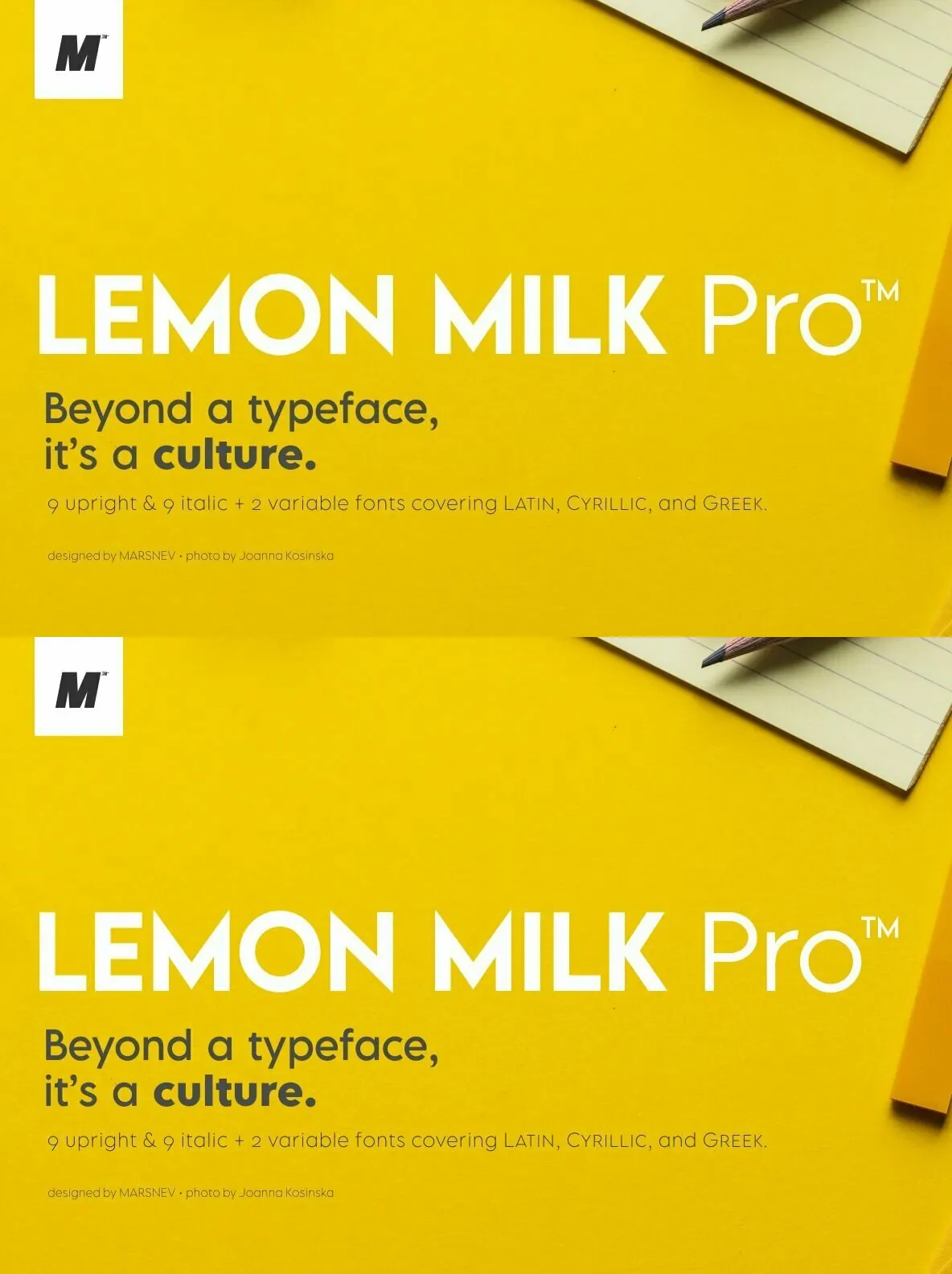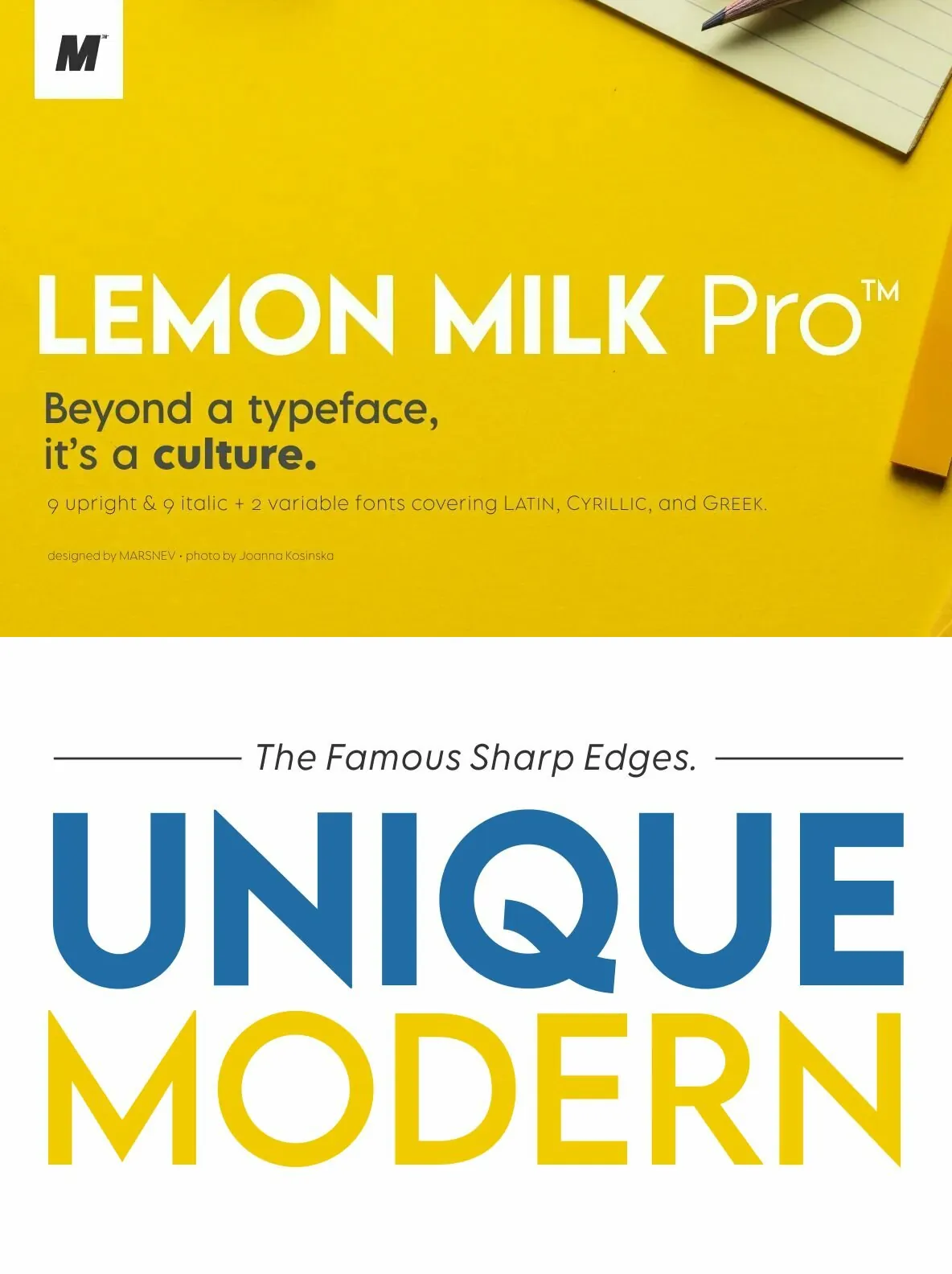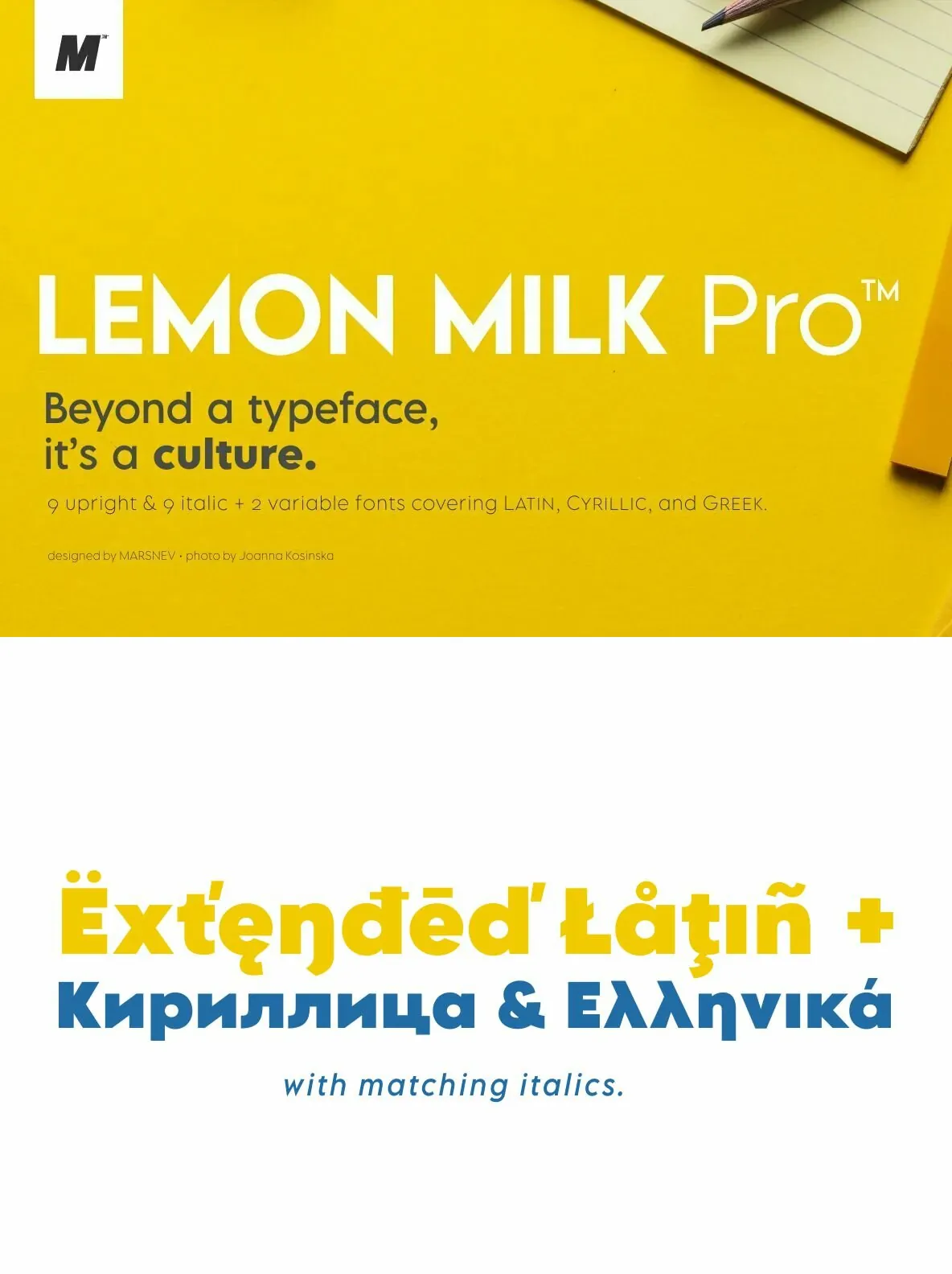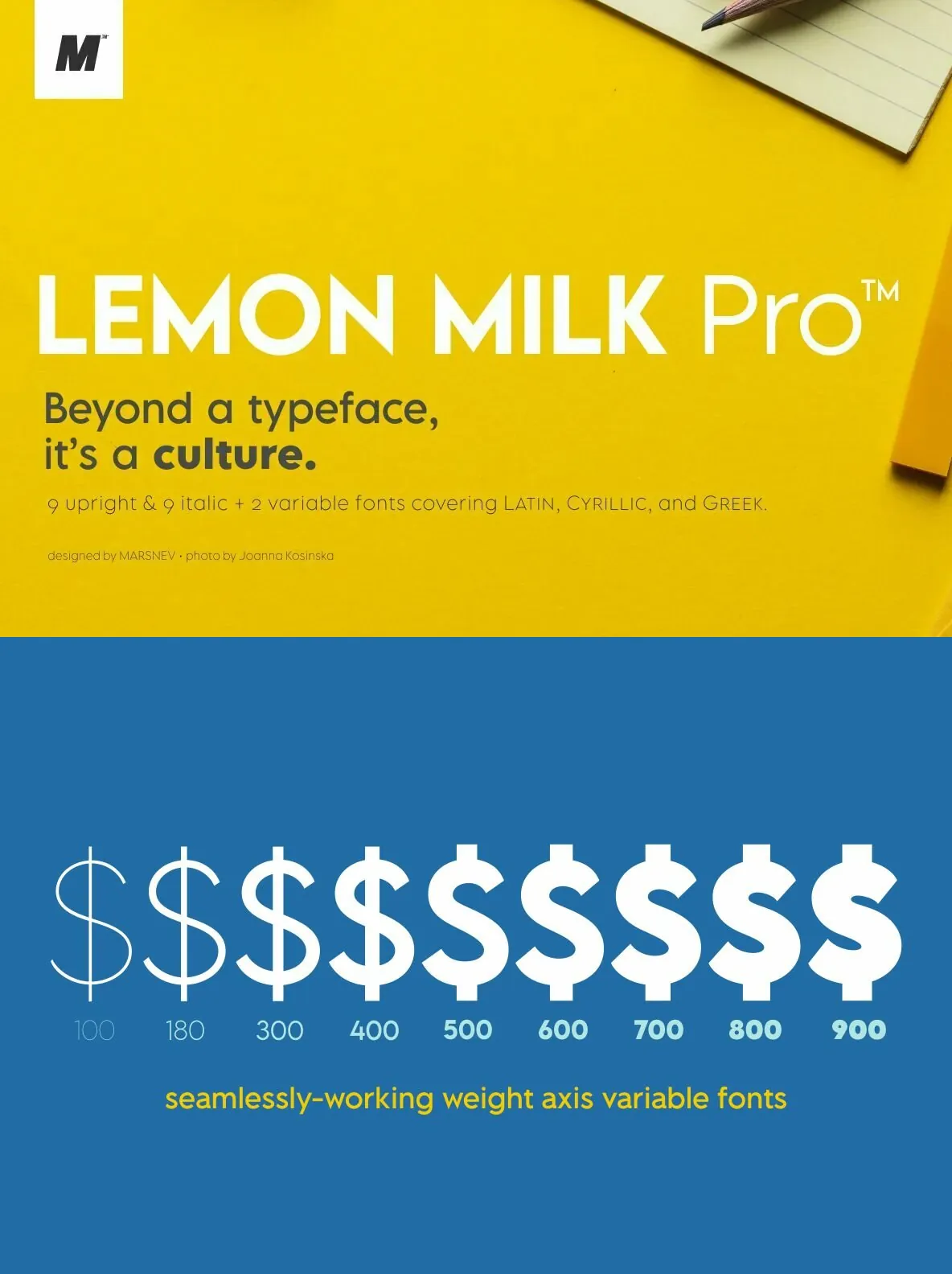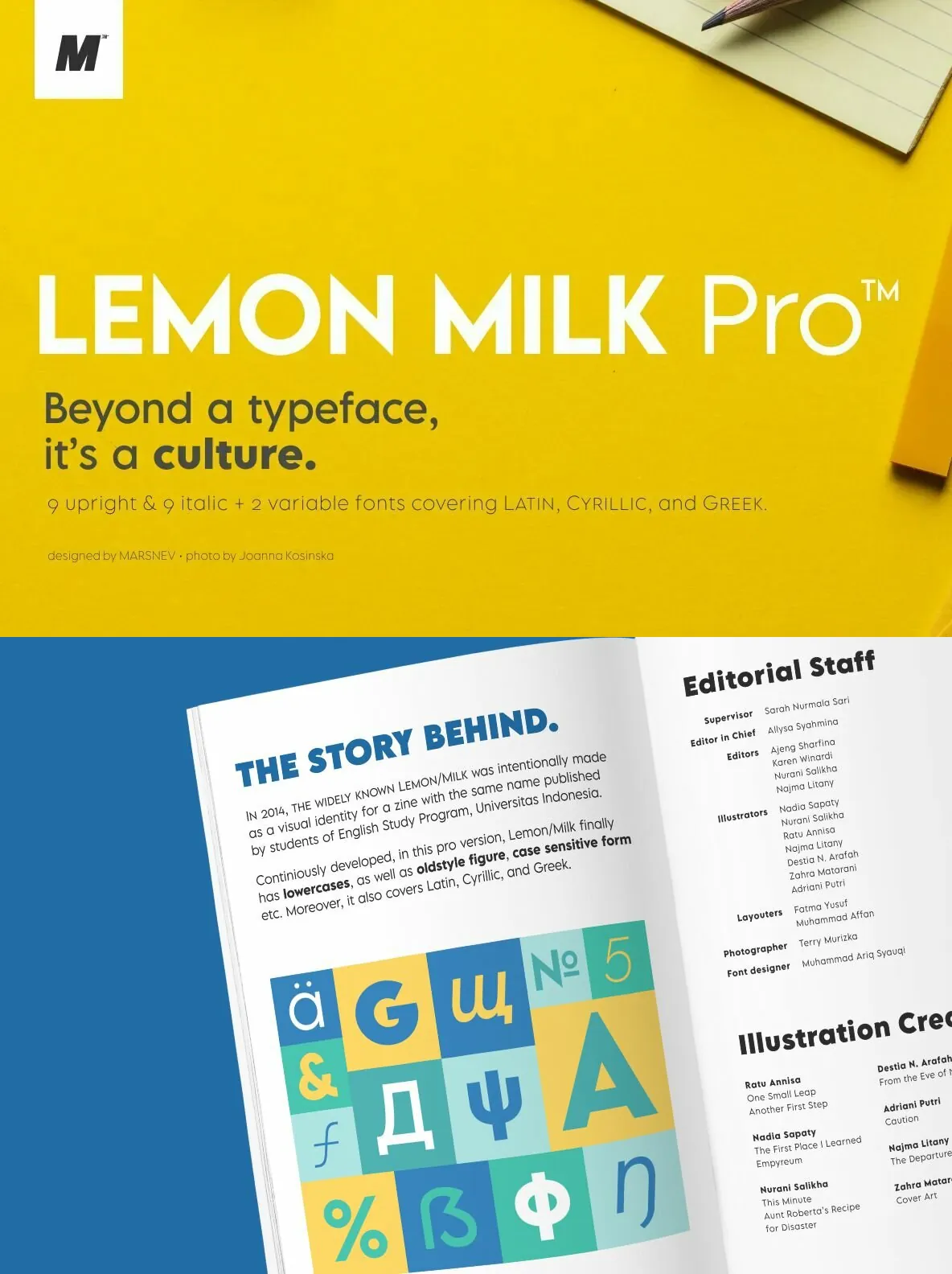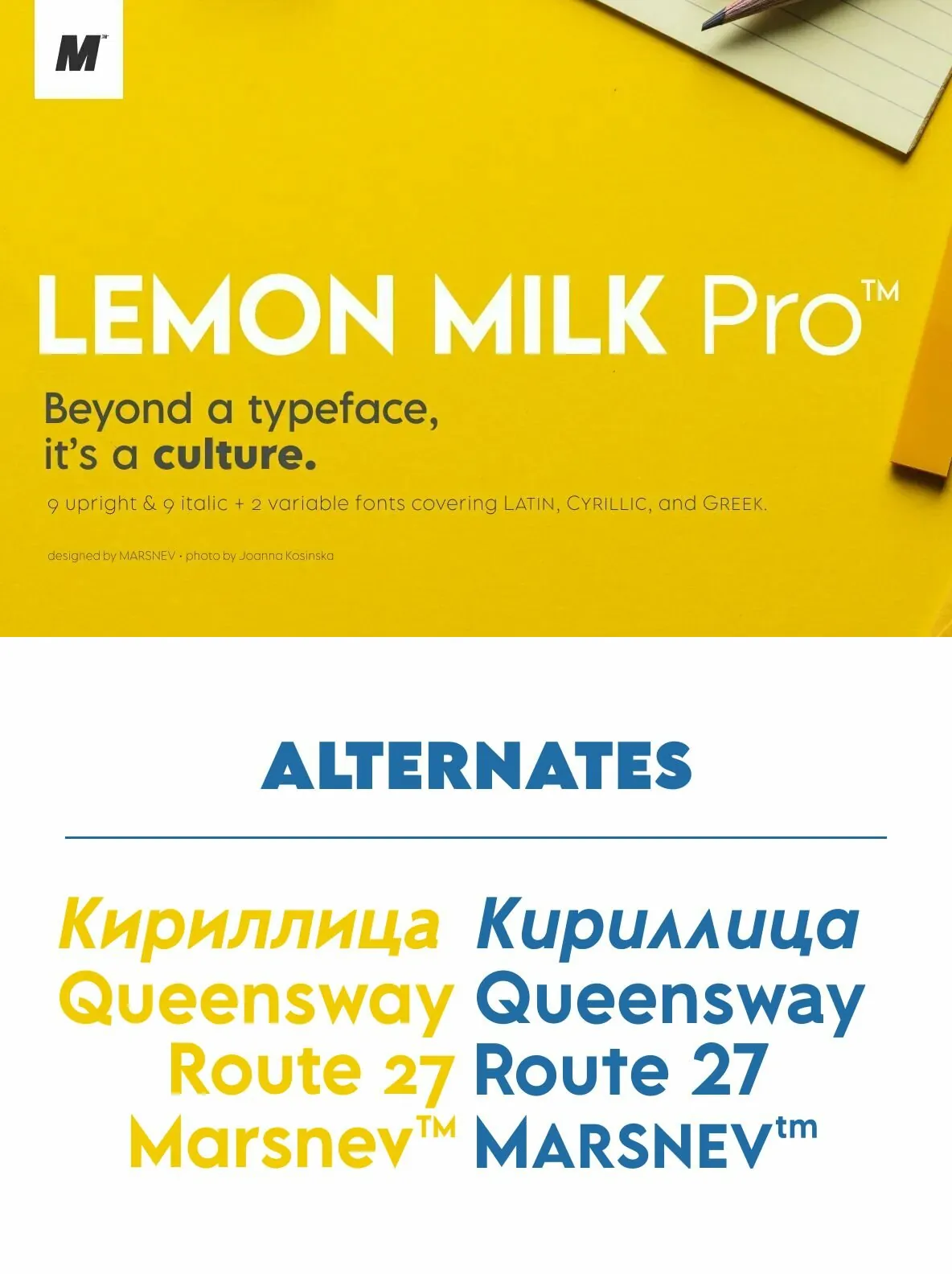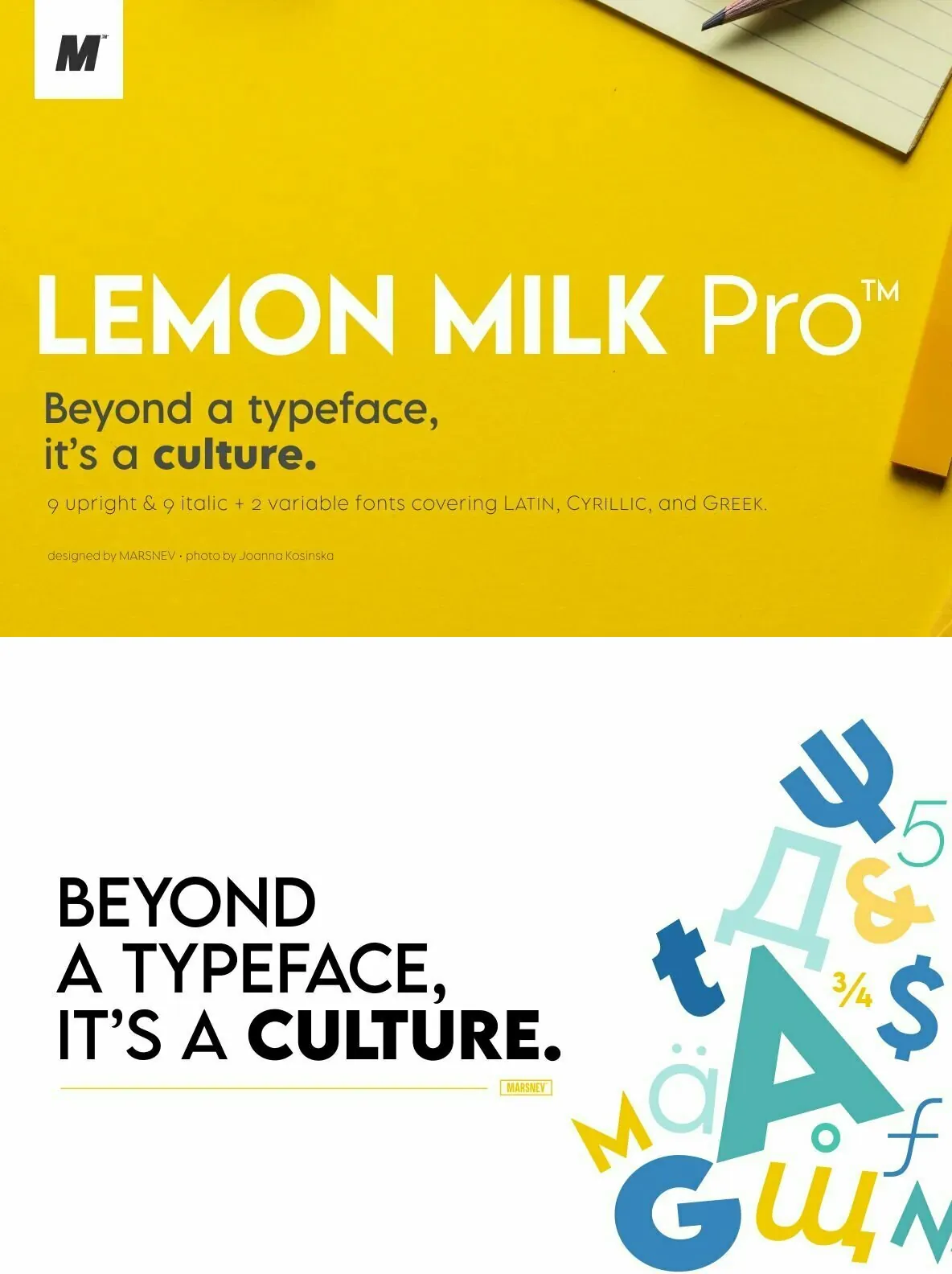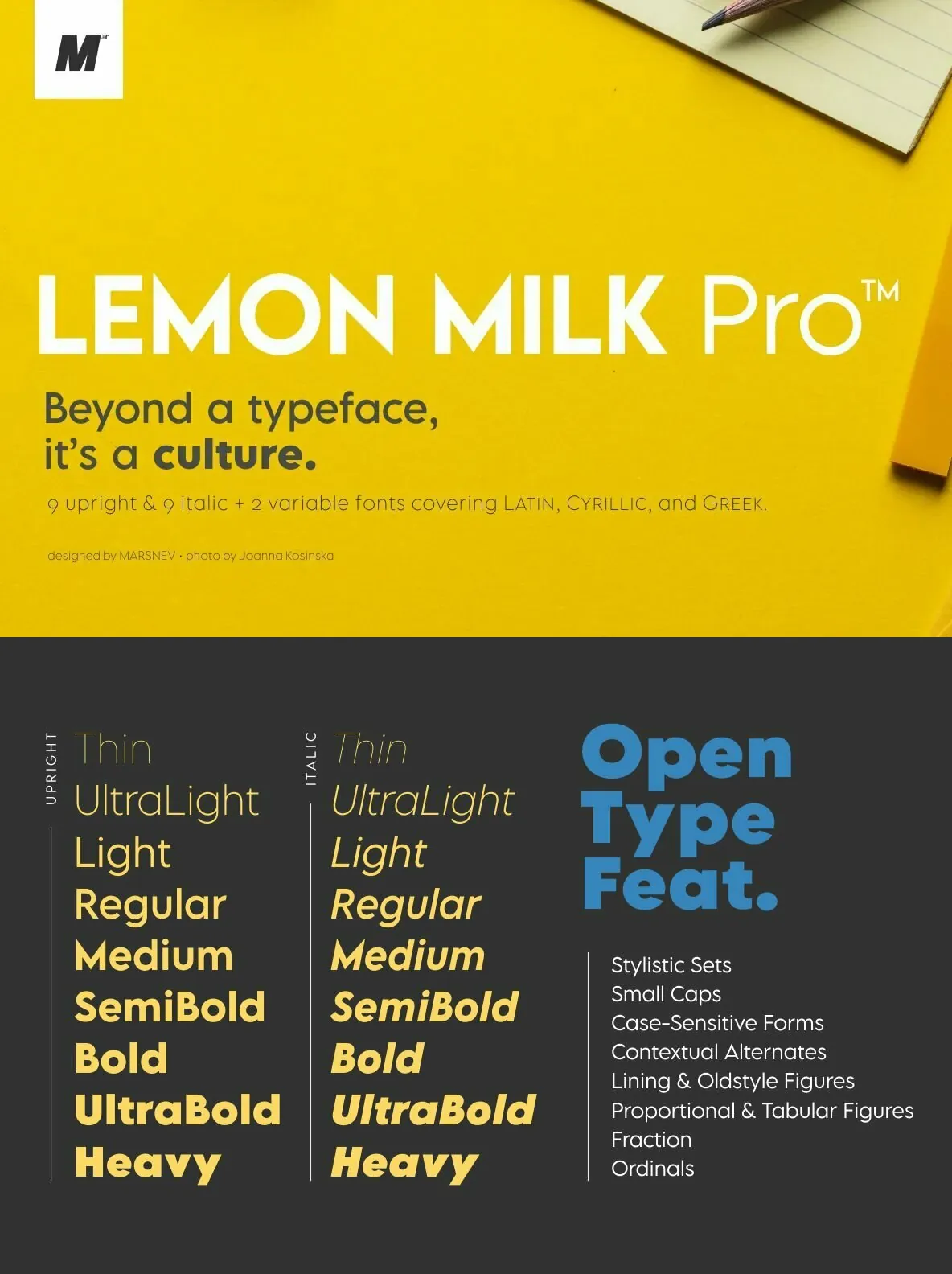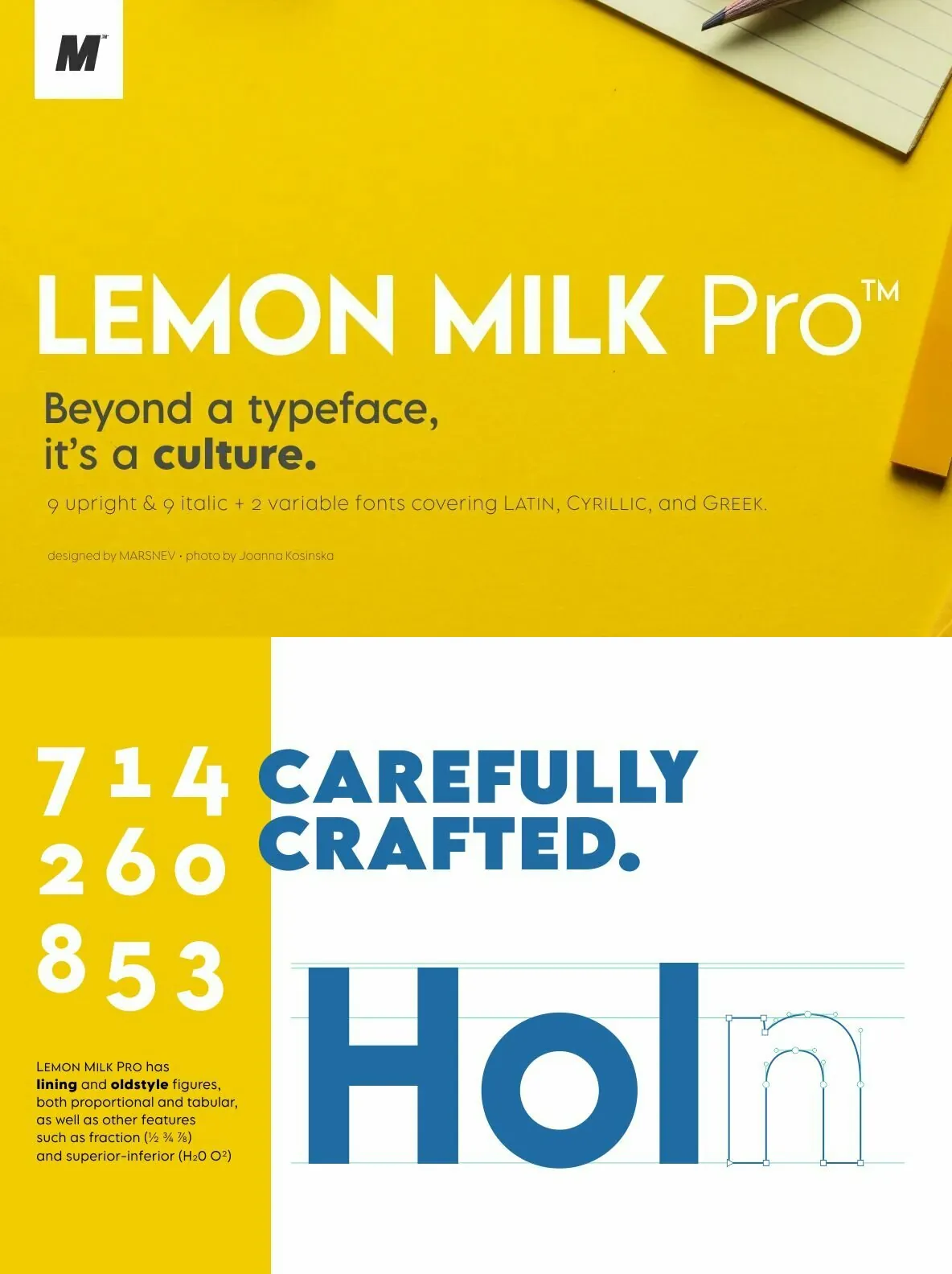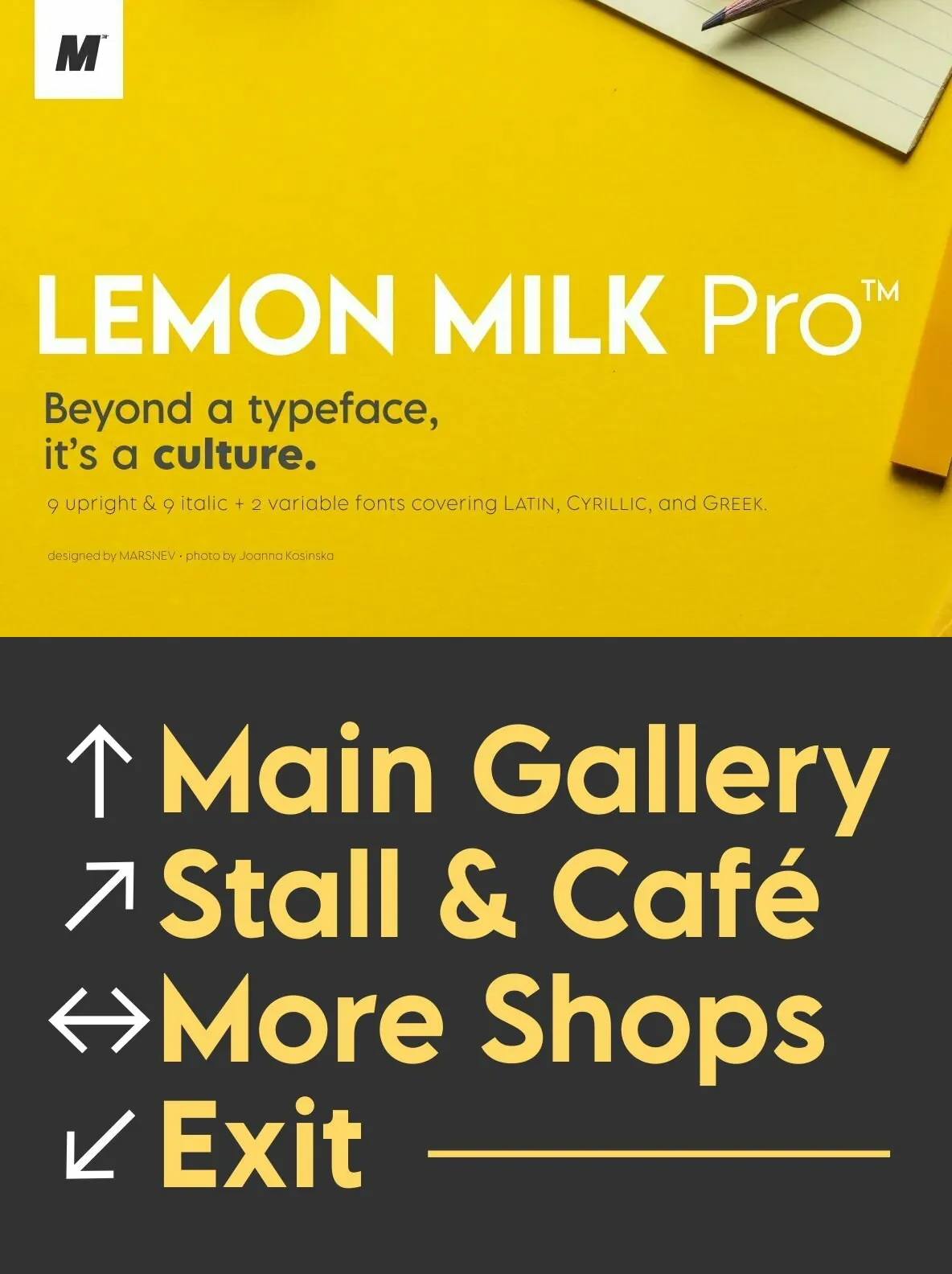
Lemon Milk Pro Font
Lemon Milk Pro — Sharp Geometry, Now Complete
Meet Lemon Milk Pro, your new go-to typeface. After a long journey, the widely known Lemon Milk has now became pro fonts. Developed from the original version in 2014, Lemon Milk Pro keeps its famous geometric sans serif structure and sharp edges, built to read cleanly at display sizes.
It finally has lowercases, covering extended Latin, Cyrillic, and Greek. It is now future proof with more opentype features + variable fonts, giving you practical flexibility across branding, posters, headlines, and digital design. With such styles, this famous sans serif geometric typeface with sharp edges is perfect for every display. Lemon Milk Pro: Beyond a typeface, it&39;s a culture.